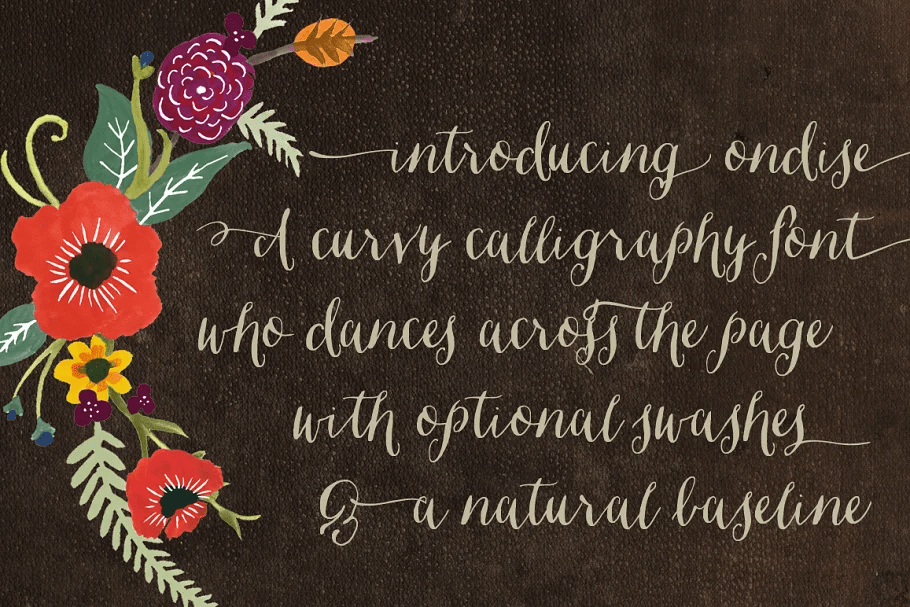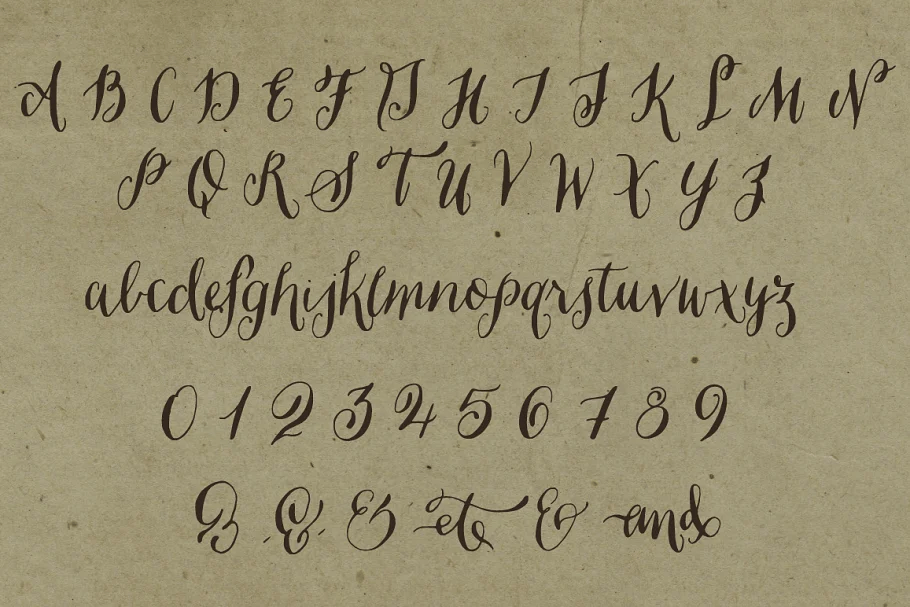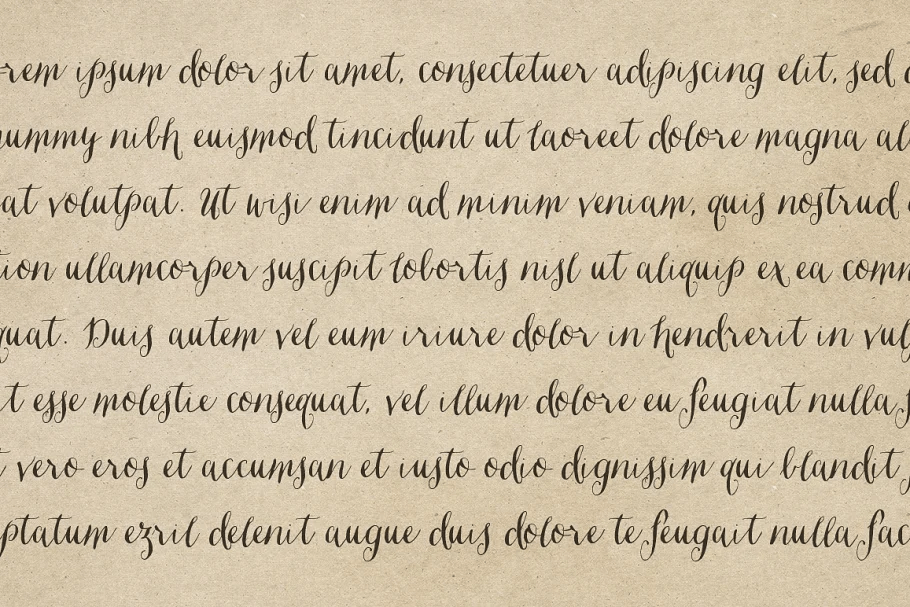
About Ondise
Ondise is a curvy and warm hand-lettered calligraphy script with a natural, dancing baseline. This Opentype font was created with a pointed pen & ink, and includes six different ampersands as well as a swash feature that automatically substitutes beginning…